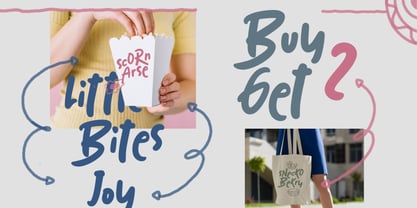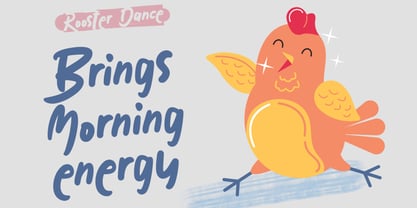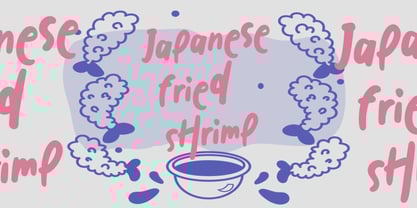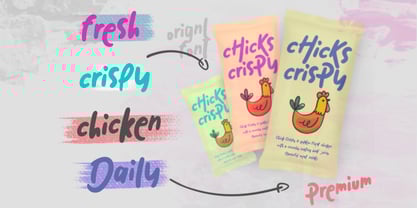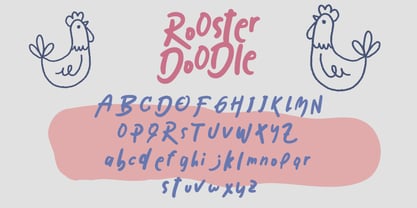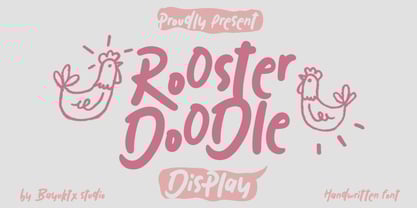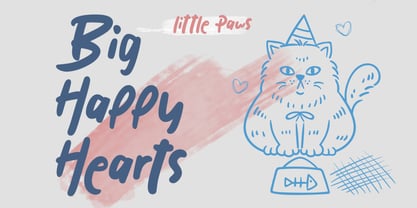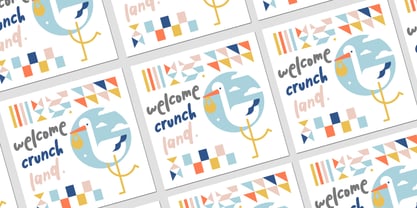
Rooster Doodle
by Bayuktx
The Rooster Doodle Font Family was designed by Bayu Aji Fais Mursid and published by Bayuktx. Rooster Doodle contains 1 styles.
Rooster Doodle – Playful Handwritten Display Font Rooster Doodle Playful Handwritten Display Font is a cheerful and charming typeface inspired by cute doodle sketches, farmyard characters, and casual handwritten lettering. With soft curves, rounded strokes, and playful forms, this font brings a friendly and joyful personality to any design. Designed with a relaxed hand-drawn style, Rooster Doodle captures the spontaneous feel of doodling on paper. Each letter feels lively, cute, and approachable — making it perfect for kids designs, fun branding, packaging, and creative projects that need a lighthearted touch. Whether for product labels, posters, social media graphics, or merchandise, Rooster Doodle adds warmth, humor, and playful energy to your typography. Key Features : * Uppercase & Lowercase Characters * Numerals & Punctuation * Multilingual Support * PUA Encoded & OpenType Features * Handwritten Doodle Style * Smooth Rounded Strokes Suitable For : * Kids & Playful Designs * Cute Branding & Packaging * Food & Snack Labels * Social Media Graphics * Posters & Greeting Cards * Stickers & Merchandise * Creative Handwritten Typography With Rooster Doodle Playful Handwritten Display Font, your designs gain a cute, fun, and friendly character — perfect for projects that celebrate creativity, joy, and playful expression.
Designers: Bayu Aji Fais Mursid
Publisher: Bayuktx
Foundry: Bayuktx
Design Owner: Bayuktx